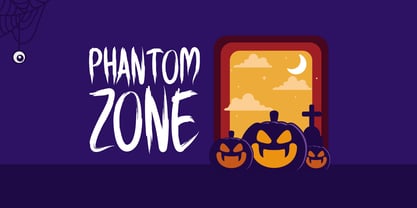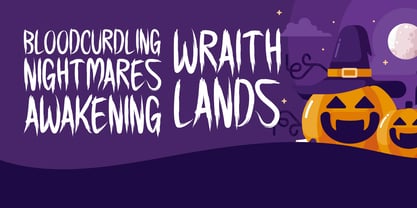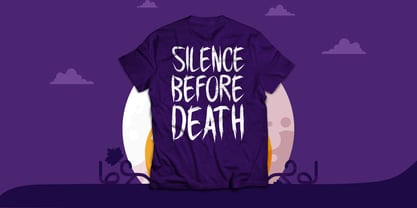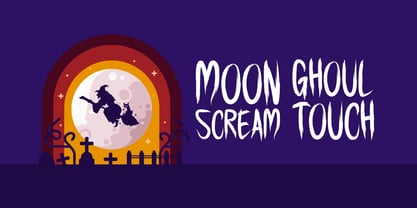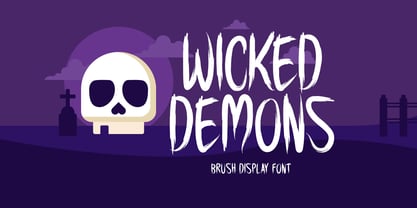
Wicked Demons
The Wicked Demons Font Family was designed by Md. Sohail Bhuiyan and published by Seemly Fonts. Wicked Demons contains 1 styles. More about this family
Wicked Demons is a striking display typeface inspired by the spirit of Halloween and the world of the supernatural. Its bold, creepy character makes it ideal for stationery, logos, apparel, invitations, posters, and online visuals. From haunted party flyers to horror-themed branding, Wicked Demons adds a dark, dramatic energy that instantly captures attention and sets the perfect mood.